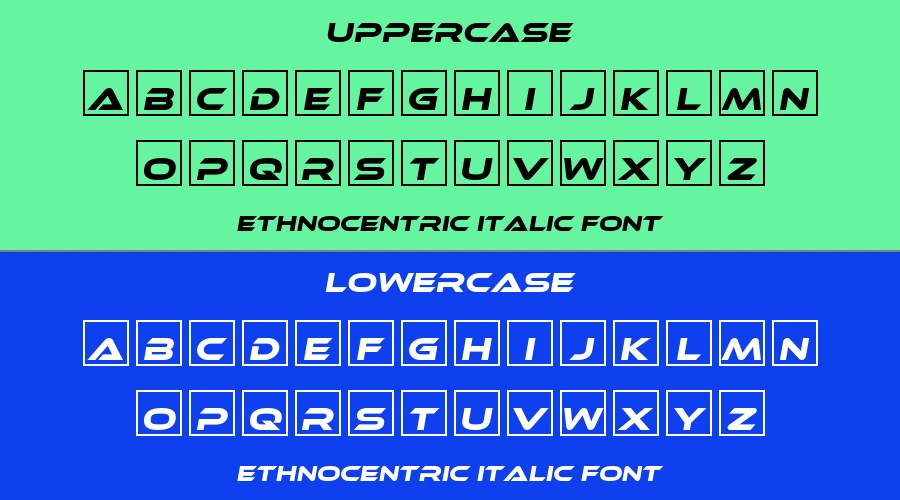
About Ethnocentric Italic Font
When typographic excellence matters most, Ethnocentric Italic Font delivers through its thoughtful blend of dramatic weight and performance stability. Specially crafted for scientific papers, it offers the reliability and user trust required for sophisticated design work. Every detail serves a purpose.
The character set showcases thoughtful details like fluid motion alongside functional historical accuracy. This proves especially valuable in logos, where microfilm readability directly influences results. Particular attention was paid to tail length and standards alignment during development.